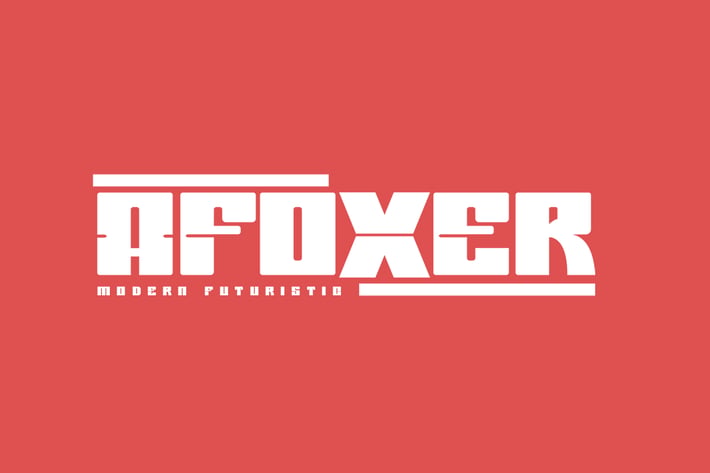
Afoxer - Display Font
Introducing Afoxer, a modern furutistic sans serif font. Its unique and sporty feel.
So perfect for you who needs a typeface for logo designs, magazine, social media, brochure, and many more.
+ Uppercase
+ Numerals
+ Punctuation